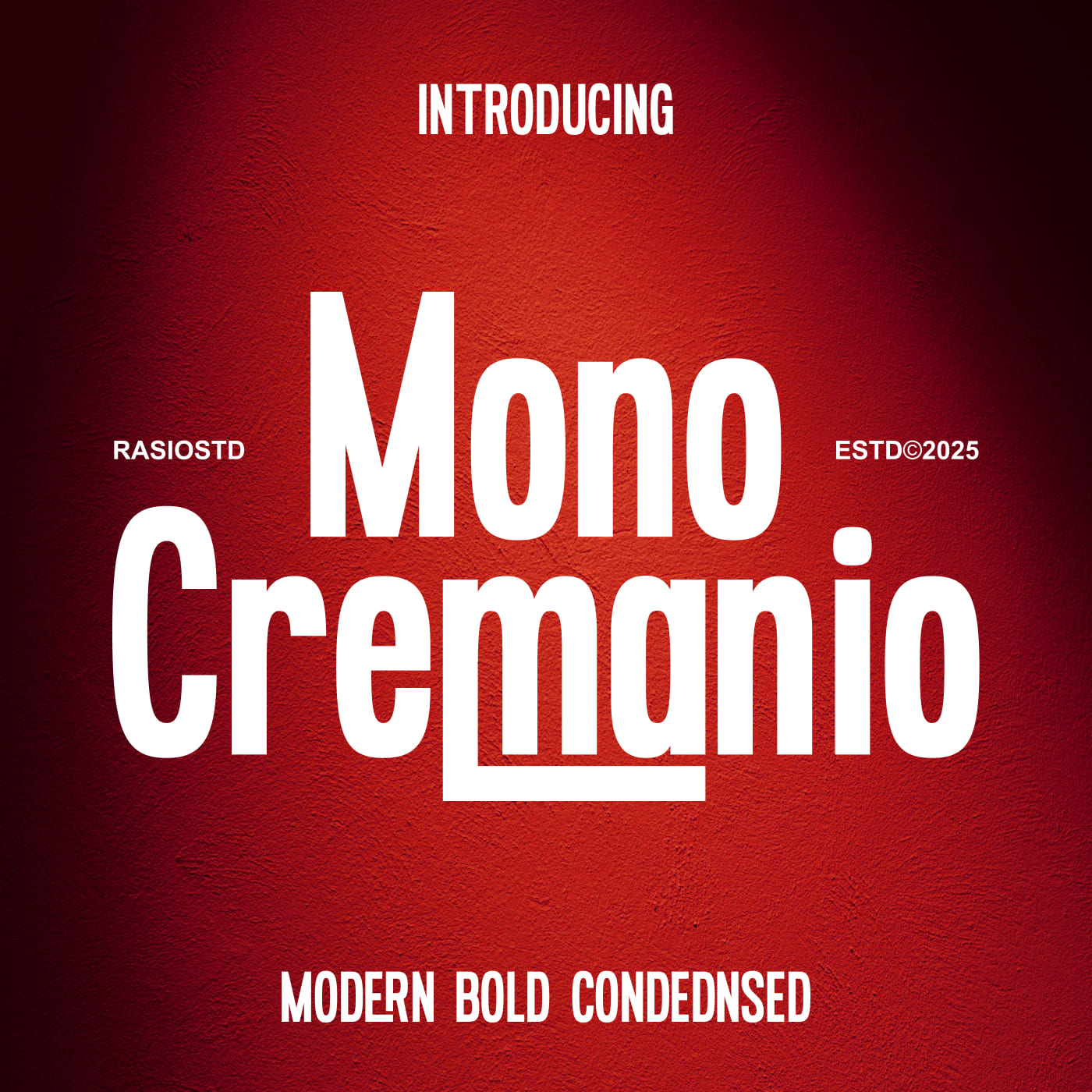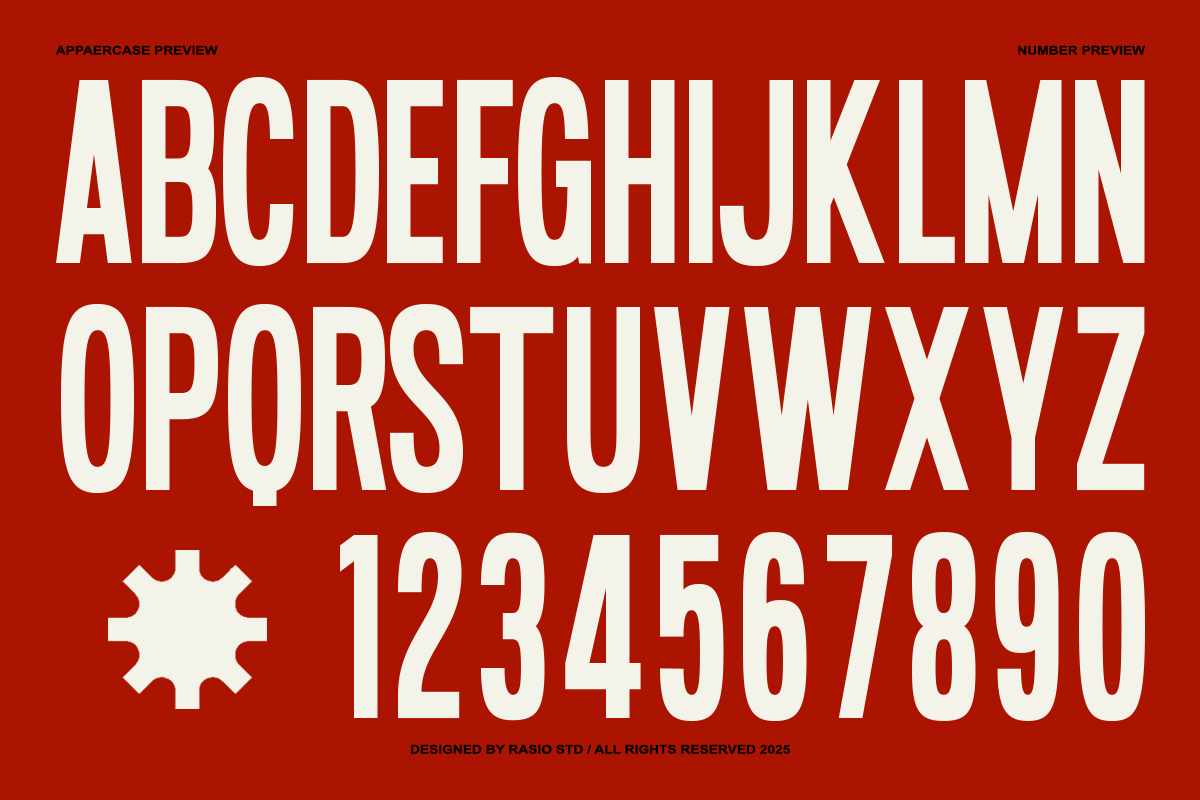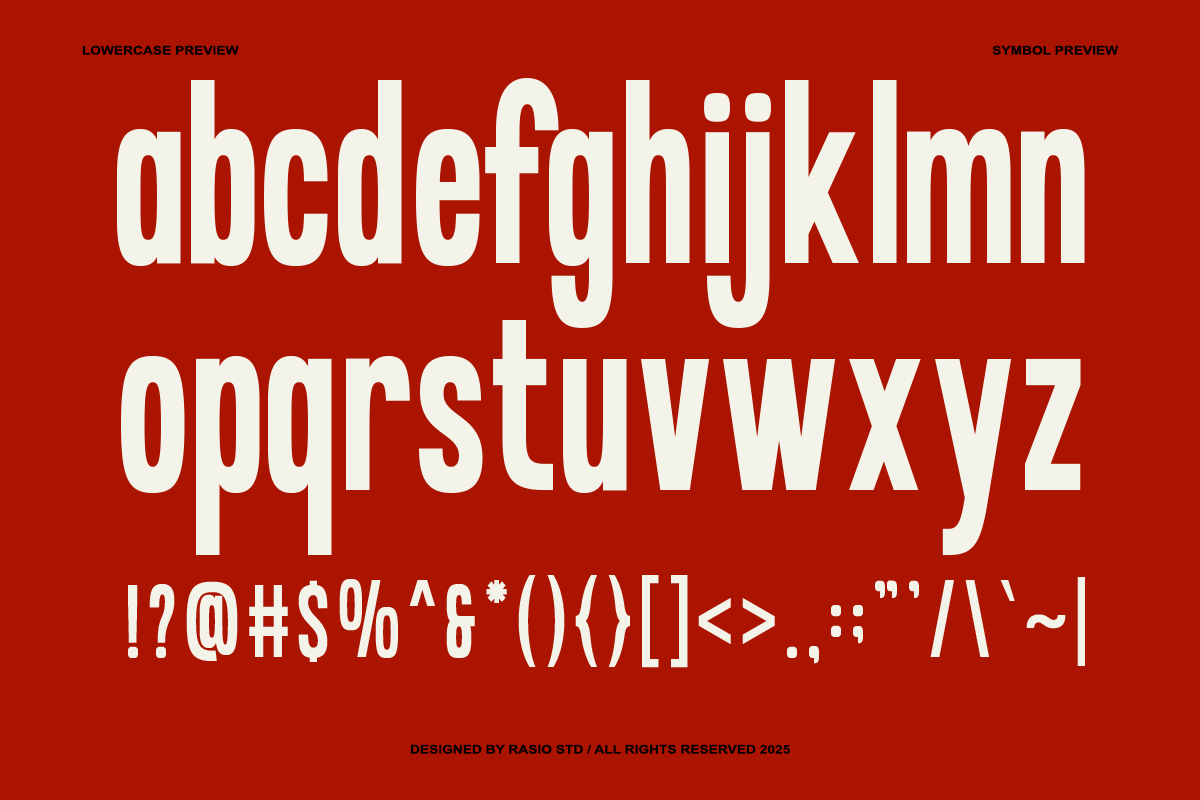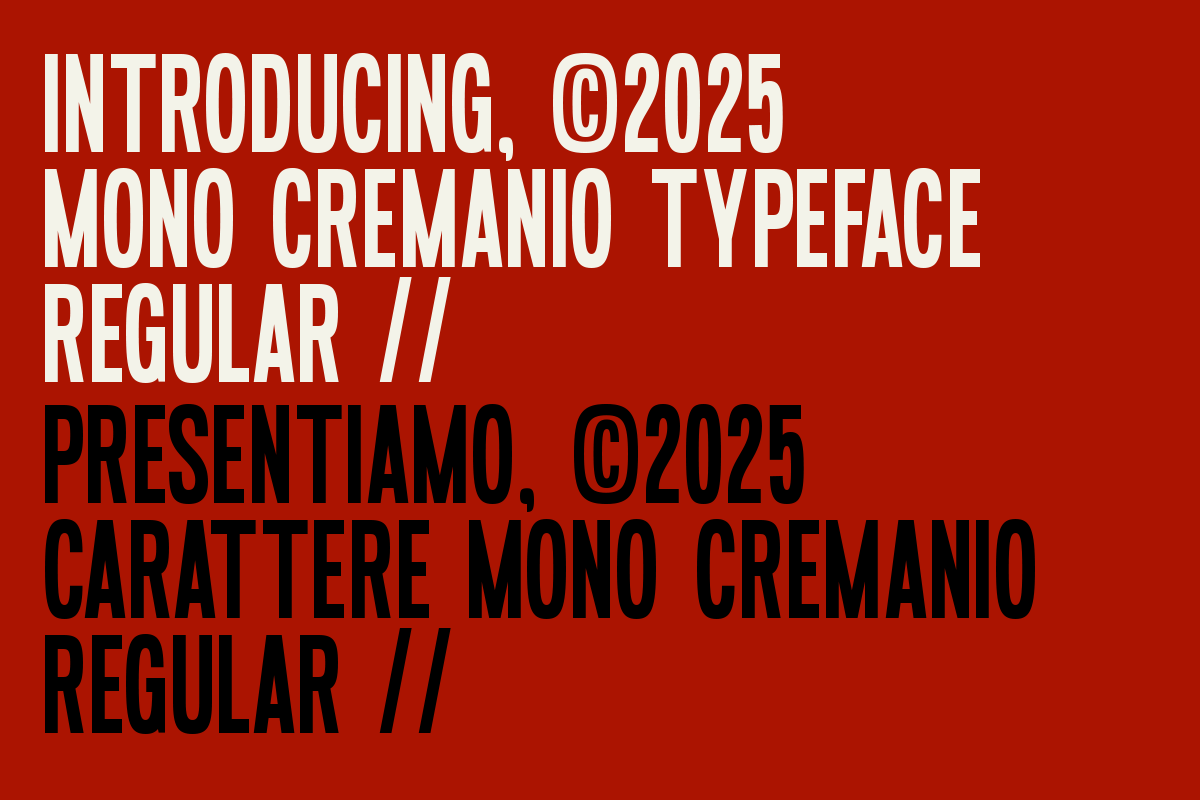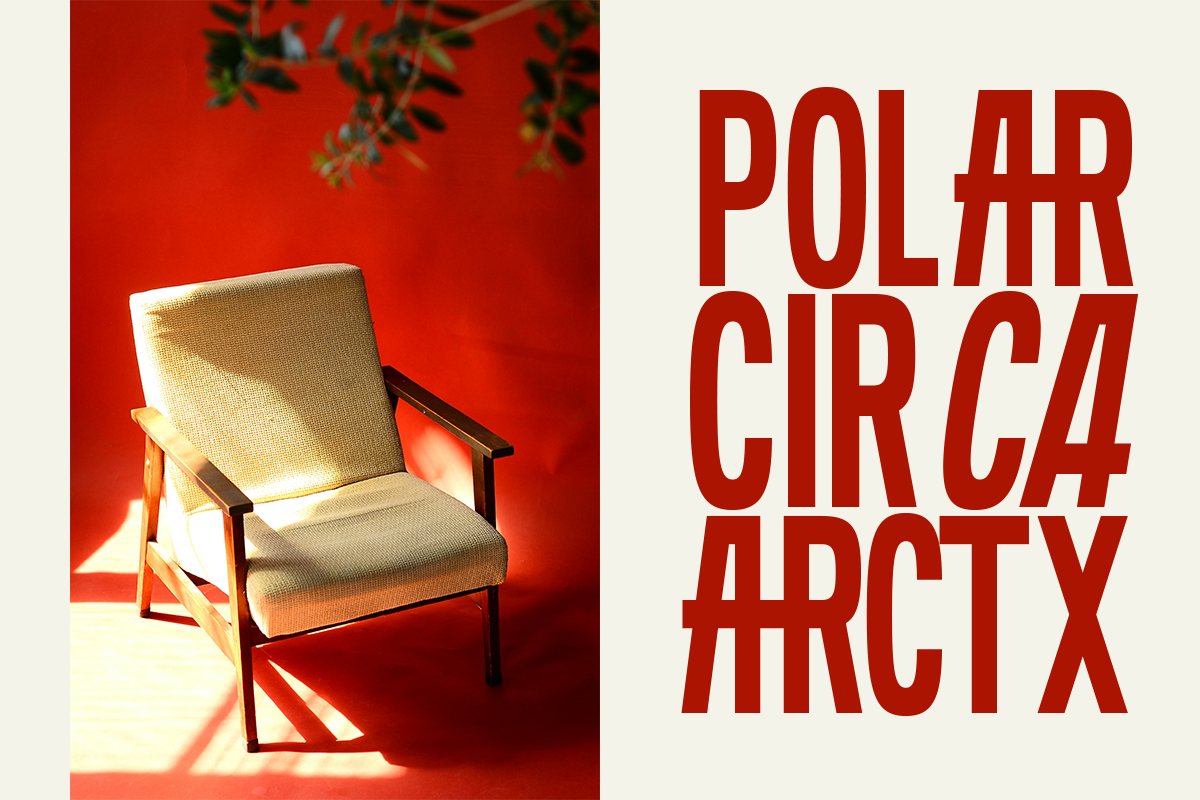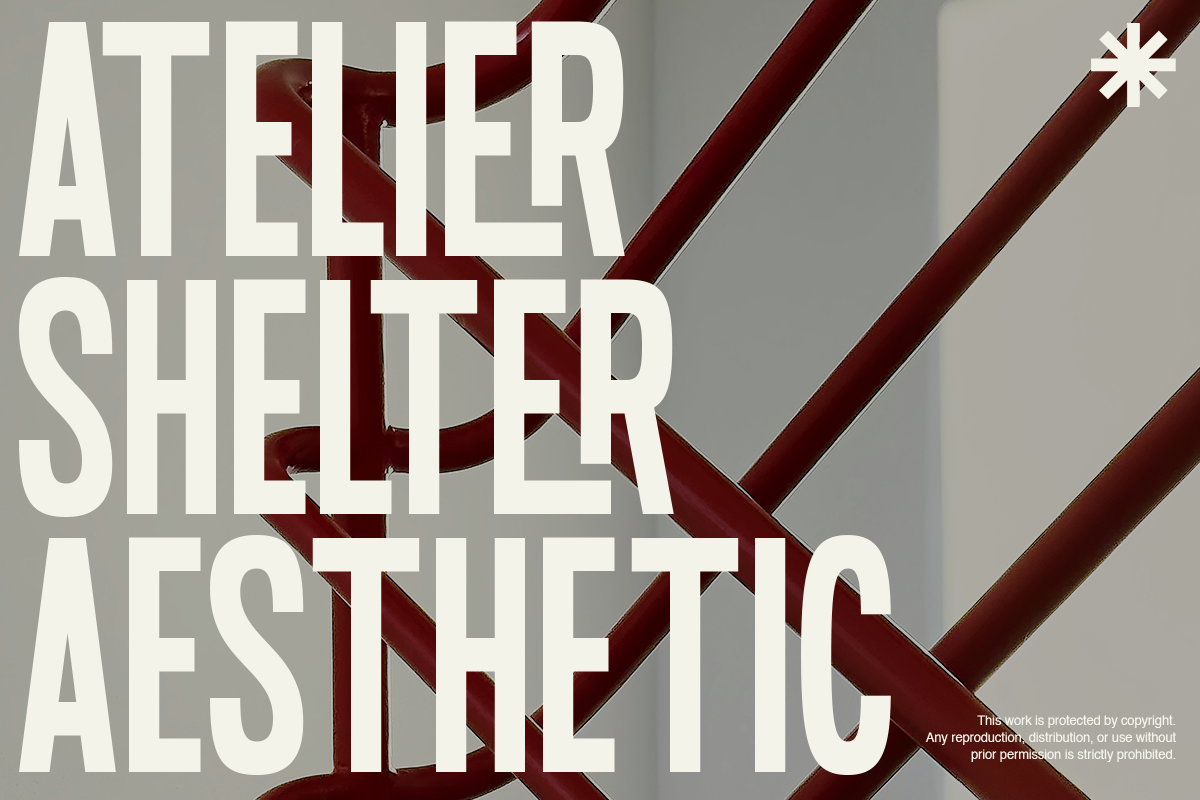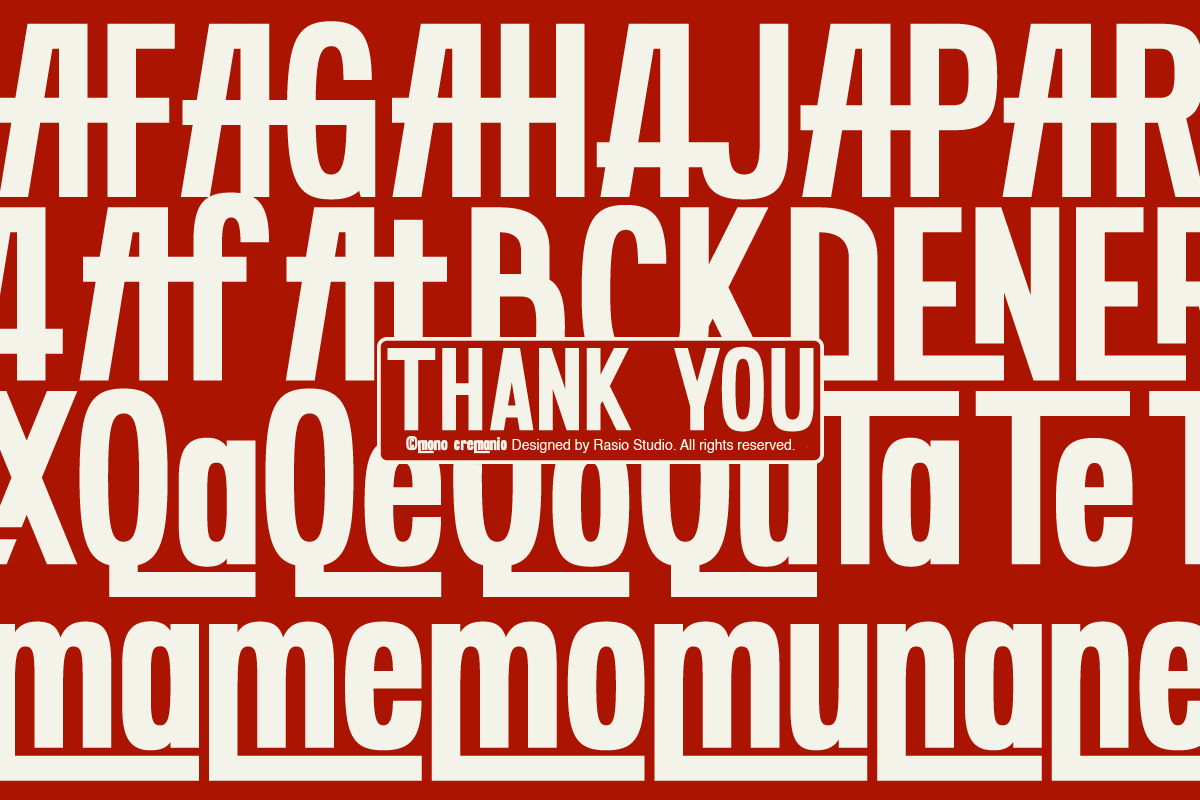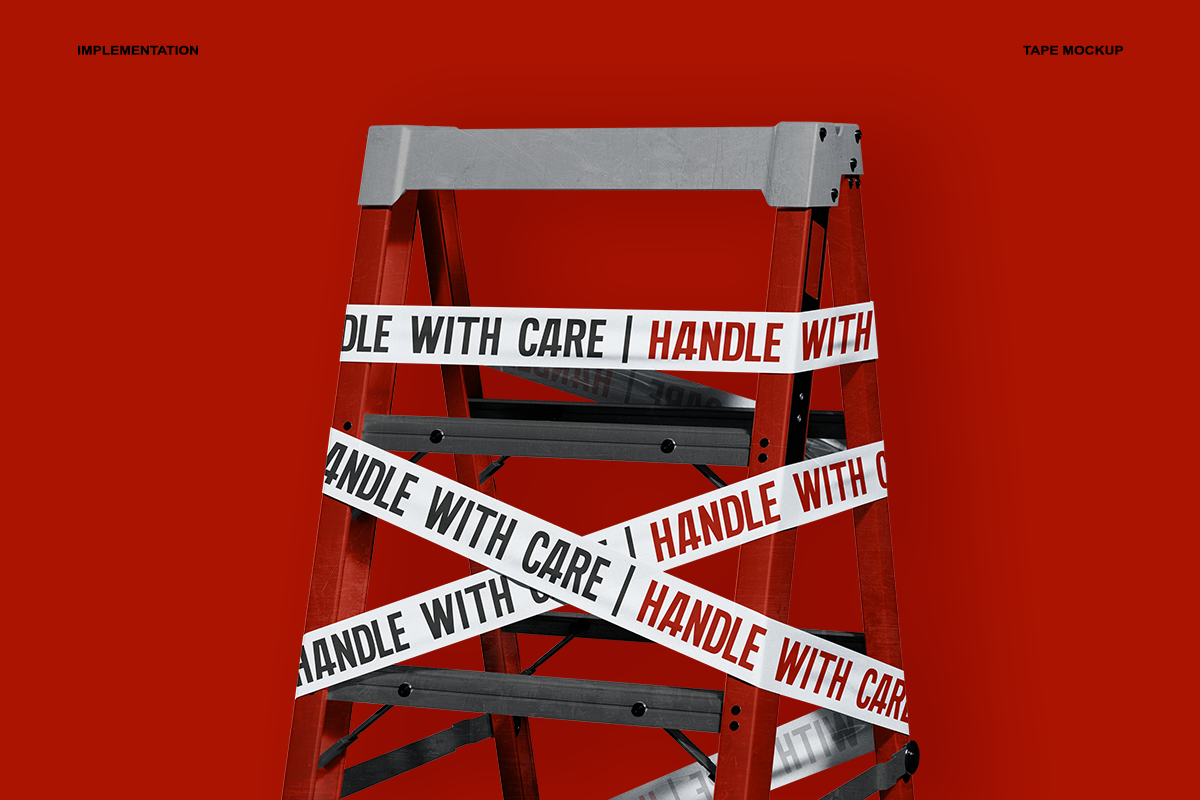
Mono Cremanio Modern Bold Condensed Font
Mono Cremanio Bold Condensed Font showcases a modern and powerful sans-serif design with tightly packed proportions and bold geometric strokes. The condensed structure creates a strong visual presence, ideal for impactful headlines, minimalist posters, and statement branding. Featuring uppercase, lowercase, numerals, and punctuation, this typeface maintains balance between elegance and intensity for both digital and print compositions.
Relevance and Use Cases is perfect for modern posters, branding headlines, editorial layouts, minimalist packaging, social media visuals, motion graphics titles, and bold advertising campaigns that demand clarity and confidence.
• Condensed letter spacing
Mono Cremanio Modern Bold Condensed Font is a sans-serif typeface with condensed letter spacing, bold geometric strokes, and uppercase, lowercase, numerals, and punctuation. It is available in TTF, OTF, and WOFF formats.